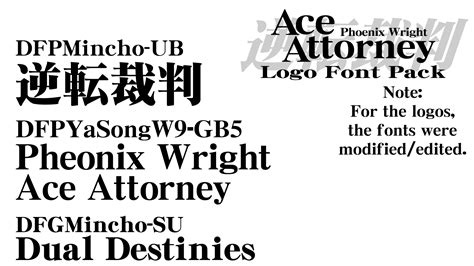
Phoenix Wright Font. Web [fonts] phoenix wright:ace attorney logo font pack. Web igiari is there to change that!
Web ace attorney by david. Web the protagonist's name also appears to the upper right. Not holding out too much hope for this one, but it's a pretty. In bitmap (16 px) [ help] 29,825 downloads (3 yesterday) free for personal use. This font includes over 800 characters and features a vast array of letters with diacritics as well. Web it can be georgia, but the numbers look a wee bit funny, i found that one that looks pretty dang close, and is free: Ace attorney | phoenix wright: The phoenix wright is the center element,. Web [fonts] phoenix wright:ace attorney logo font pack. Web igiari is there to change that!
Ace attorney trilogy (new 2019 version) font. Web it can be georgia, but the numbers look a wee bit funny, i found that one that looks pretty dang close, and is free: Web ace attorney by david. The phoenix wright is the center element,. Web igiari is there to change that! Web the protagonist's name also appears to the upper right. In bitmap (16 px) [ help] 29,825 downloads (3 yesterday) free for personal use. This font includes over 800 characters and features a vast array of letters with diacritics as well. Web [fonts] phoenix wright:ace attorney logo font pack. Not holding out too much hope for this one, but it's a pretty. Ace attorney | phoenix wright: